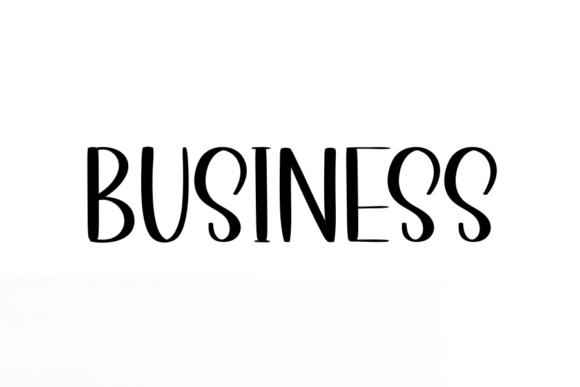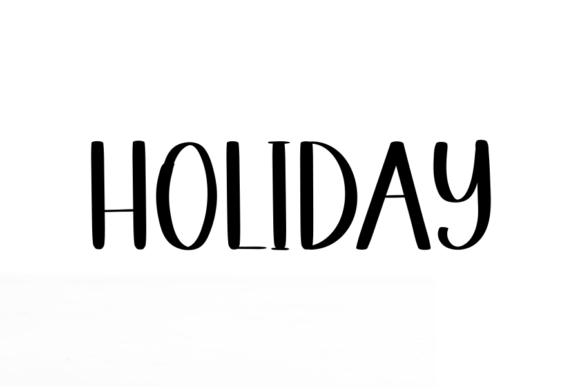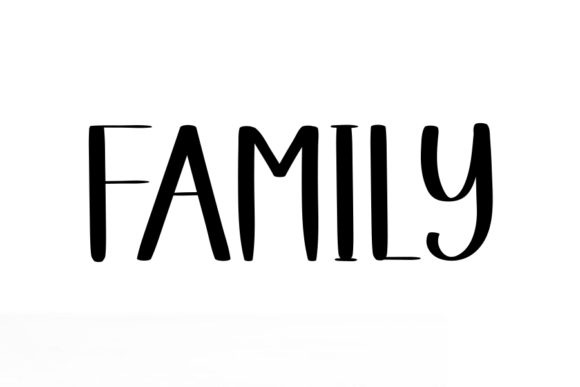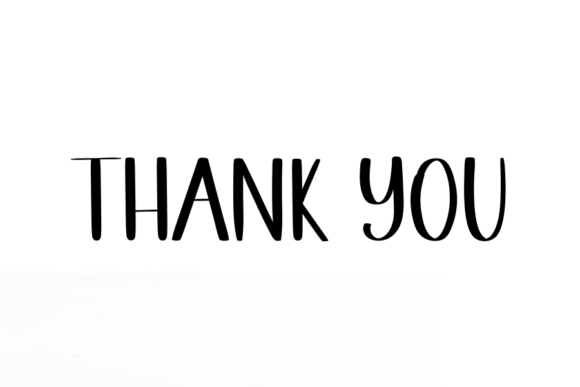
Introducing Farmhouse Font: Elevate Your Designs with Timeless Elegance
In the world of typography, few fonts manage to capture the essence of classic calligraphy while still feeling modern and fresh. Farmhouse Font is one such gem that has been making waves in the design community. This trendy handwritten font combines the best of both worlds: the elegance of traditional calligraphy and the flair of contemporary design. If you’re a designer, crafter, or simply someone who appreciates beautiful typography, Farmhouse Font is sure to become a favorite in your collection.
The Inspiration Behind Farmhouse Font
Farmhouse Font draws its inspiration from timeless classic calligraphy, bringing a sense of nostalgia and sophistication to your designs. The font’s creator aimed to craft a typeface that not only pays homage to traditional calligraphy but also feels fresh and modern. The result is a font that exudes elegance and class, perfect for a wide range of design projects.
- Handwritten with a Personal Touch: Farmhouse Font boasts a handwritten style that feels personal and approachable. Its unique characters and subtle variations in line width give it a human touch that’s hard to replicate with generic fonts.
- Contemporary Atmosphere: Despite its classic roots, Farmhouse Font has a distinctly contemporary feel. It’s perfect for designers looking to add a modern twist to their work without sacrificing elegance.
- Impeccable Form: One of the standout features of Farmhouse Font is its impeccable form. Each letter is carefully crafted to ensure that the font looks great in any context, from large headings to smaller body text.
- Versatility: Whether you’re working on a wedding invitation, a branding project, or a craft pattern, Farmhouse Font can adapt to any design need. Its versatility makes it an excellent addition to any designer’s toolkit.
Uses for Farmhouse Font
The possibilities are endless when it comes to using Farmhouse Font. Here are a few ideas to get you started:
- Wedding and Event Design: Add a touch of elegance to wedding invitations, programs, and other event materials.
- Branding and Packaging: Use Farmhouse Font to create a sophisticated brand identity that stands out from the crowd.
- Crafting and DIY Projects: From knitting patterns to handmade cards, Farmhouse Font can add a personal and classy touch to your crafting projects.
- Digital Content: Enhance your blog posts, social media graphics, and website content with a font that exudes professionalism and style.
Tips for Using Farmhouse Font Effectively
To make the most of Farmhouse Font, consider the following tips:
- Mix and Match: Don’t be afraid to combine Farmhouse Font with other typefaces to create visual interest. Its unique style makes it a great accent font.
- Play with Size and Color: Experiment with different sizes and colors to make your text stand out. Farmhouse Font looks great in both bold and subtle applications.
- Keep it Simple: While Farmhouse Font can handle a lot of design complexity, sometimes less is more. Let the font’s natural elegance shine through by keeping your design clean and uncluttered.
Farmhouse Font is more than just a typeface; it’s a design statement. With its roots in classic calligraphy and its eye towards modern design, it offers the best of both worlds. Whether you’re a professional designer or a crafting enthusiast, Farmhouse Font has the potential to elevate your projects and add a touch of timeless elegance. So why wait? Explore the possibilities of Farmhouse Font today and discover how it can transform your designs.